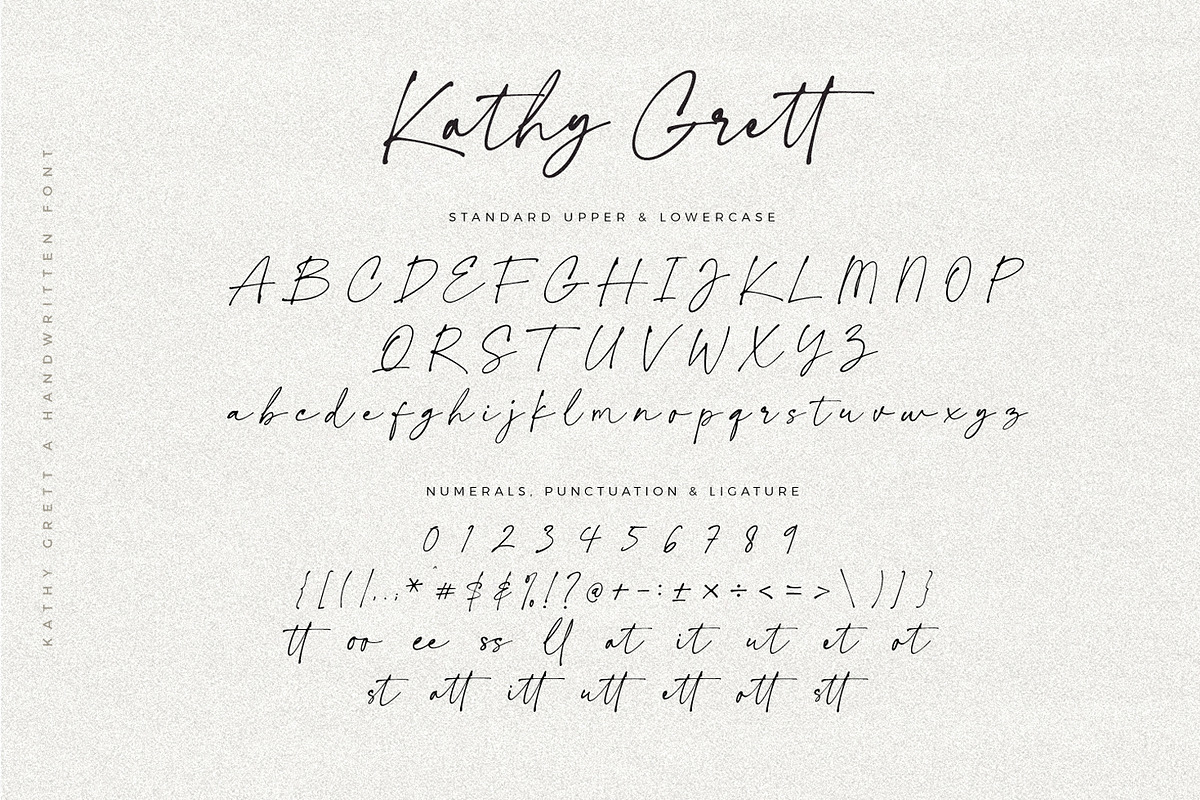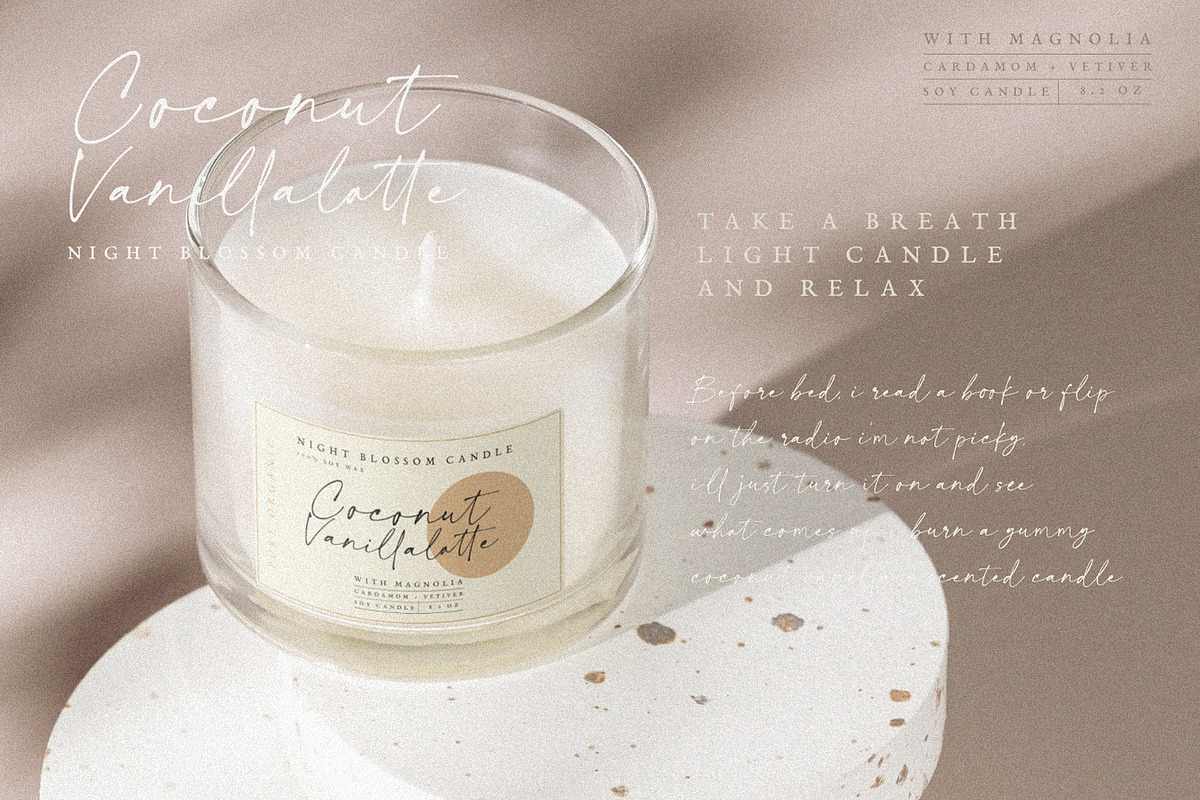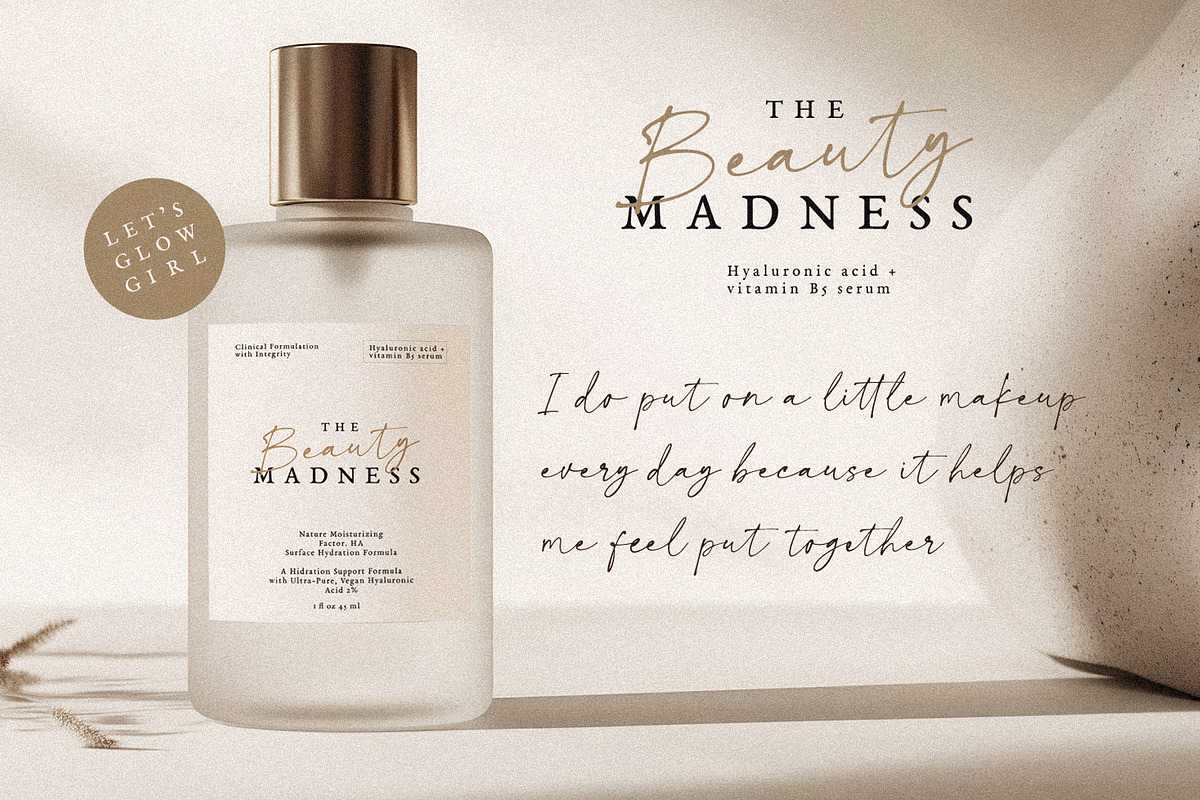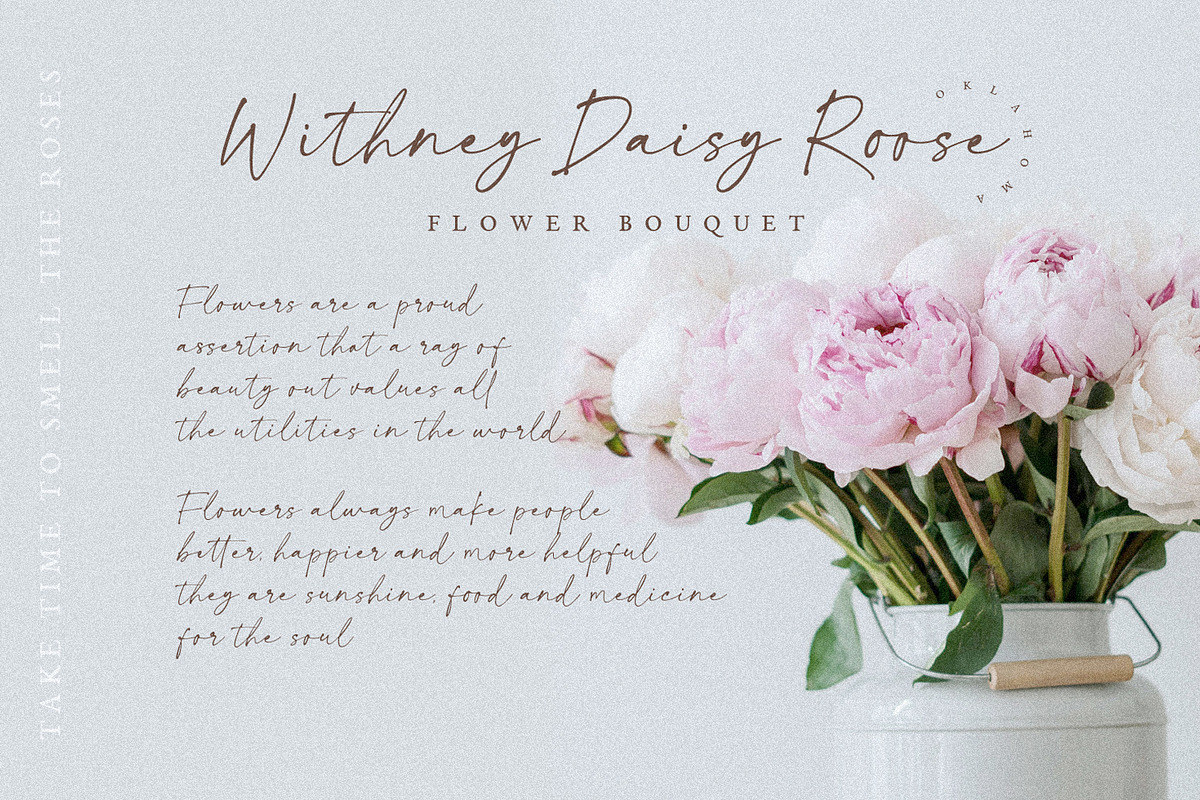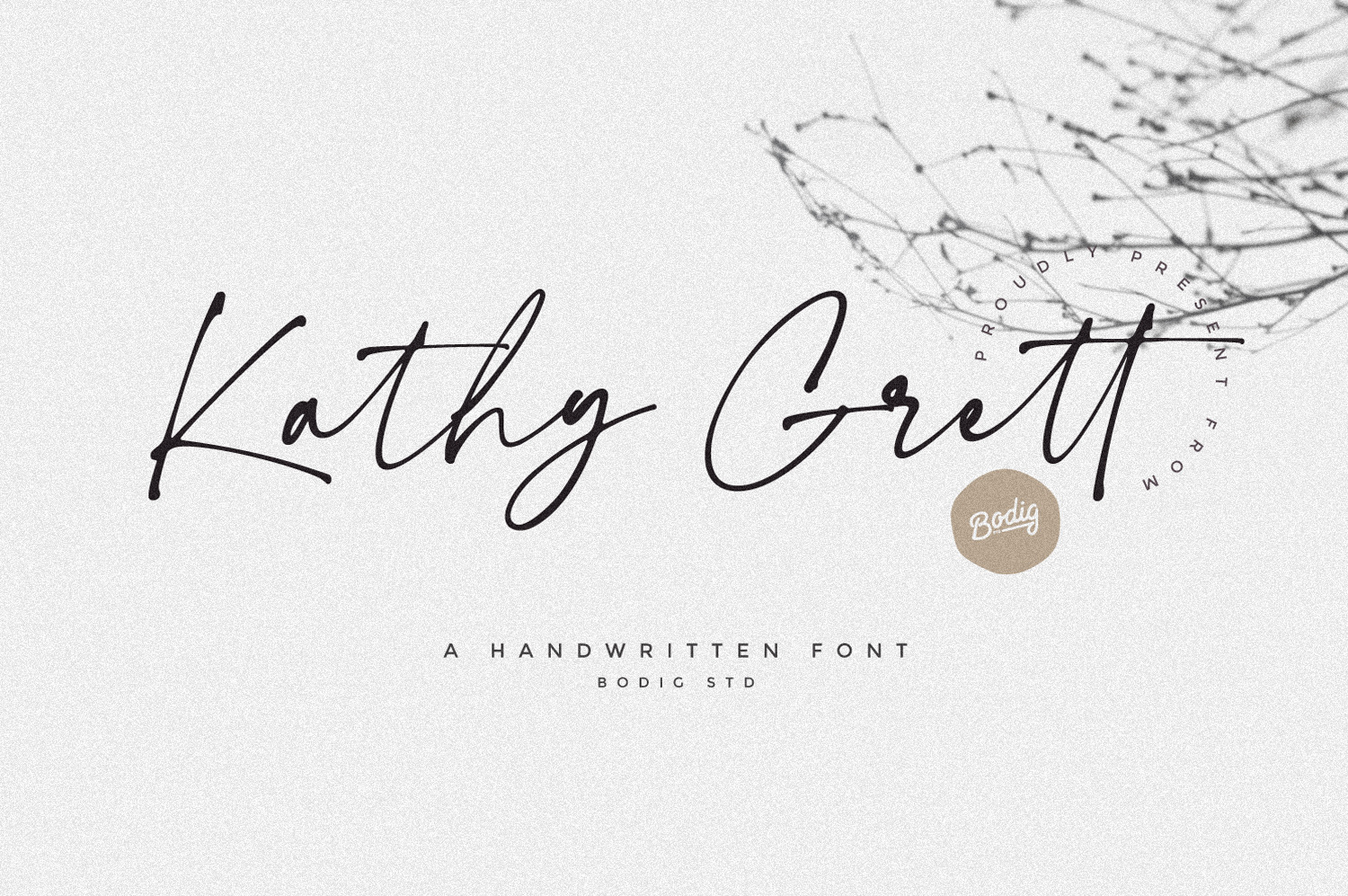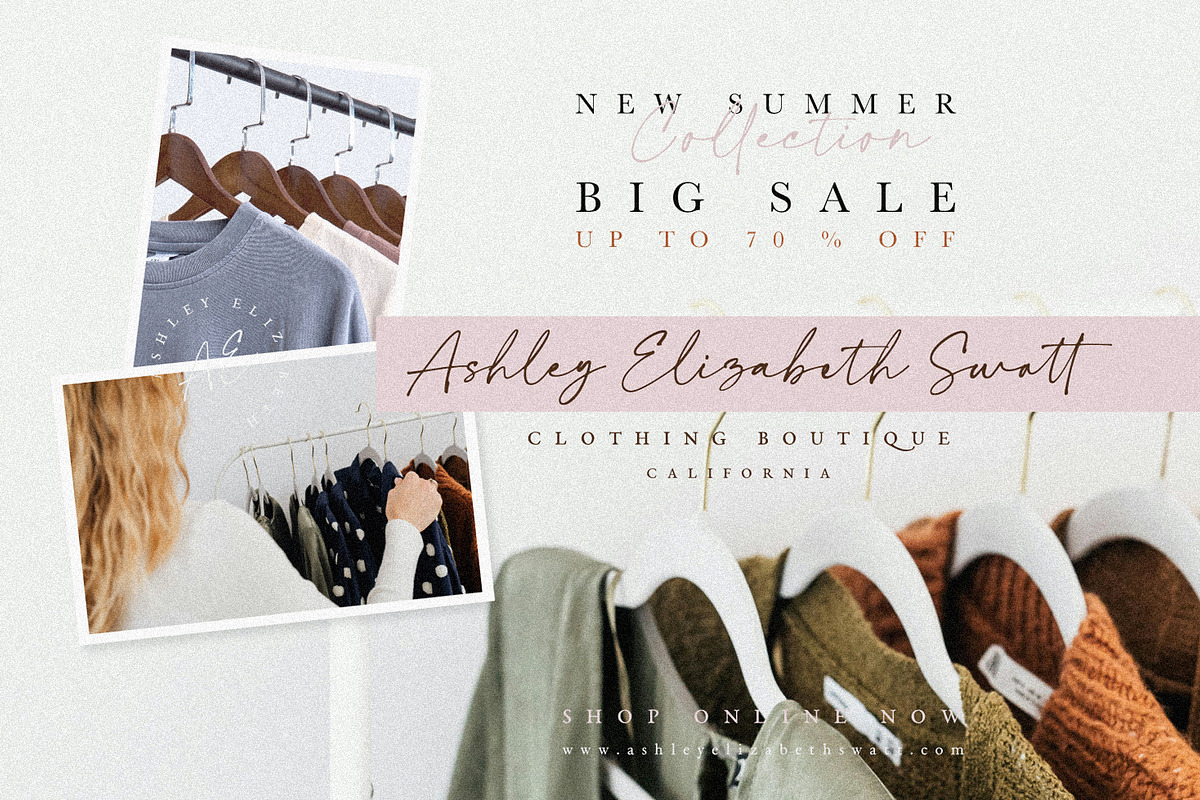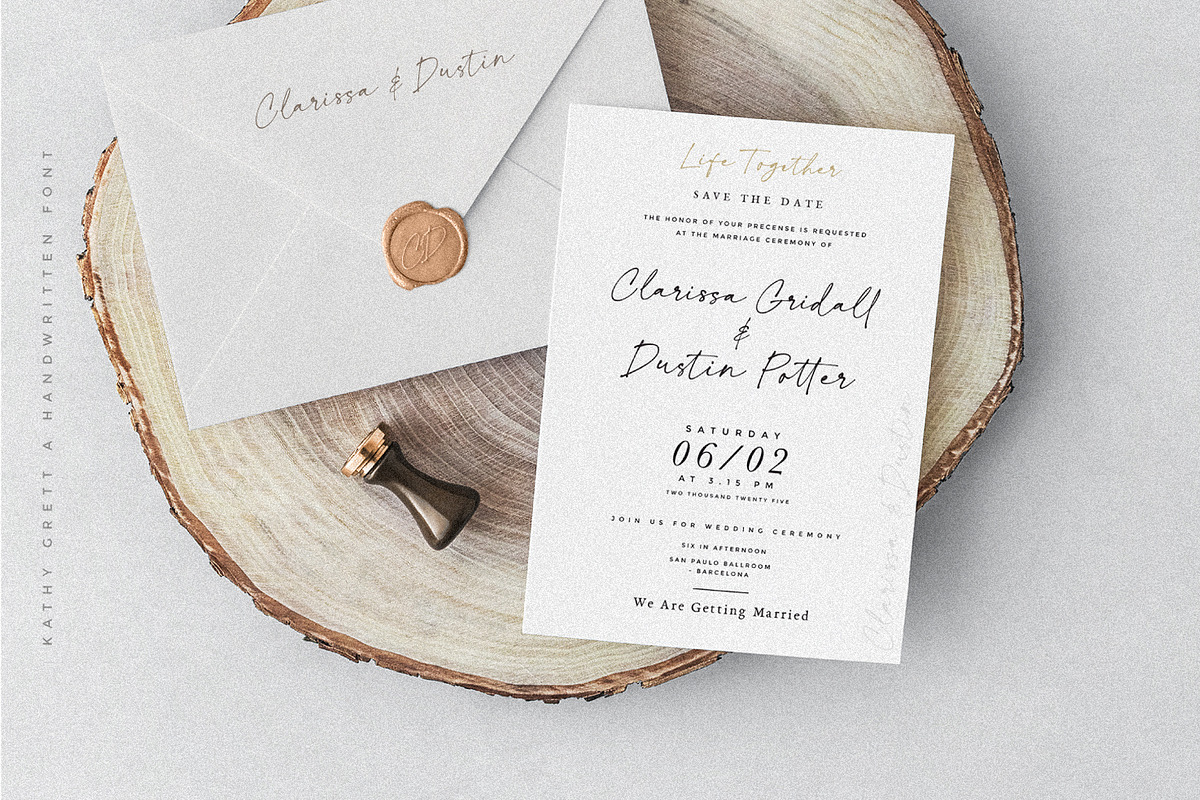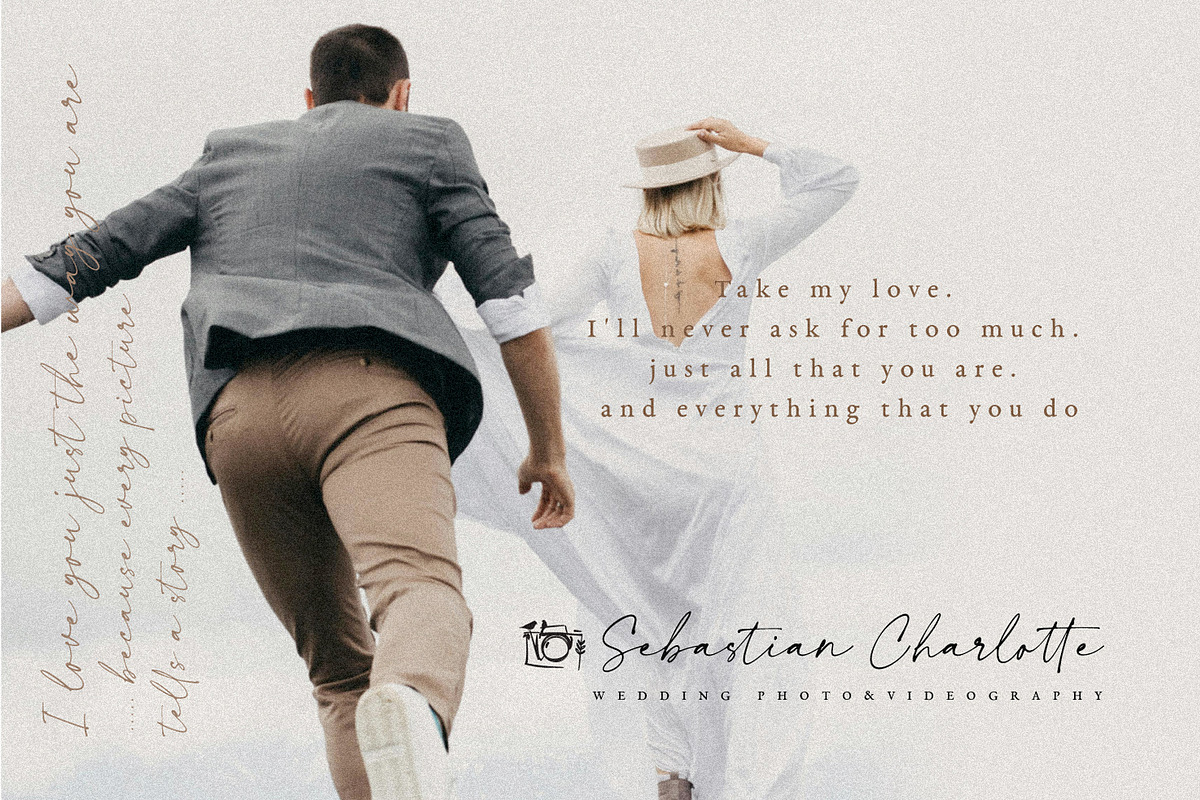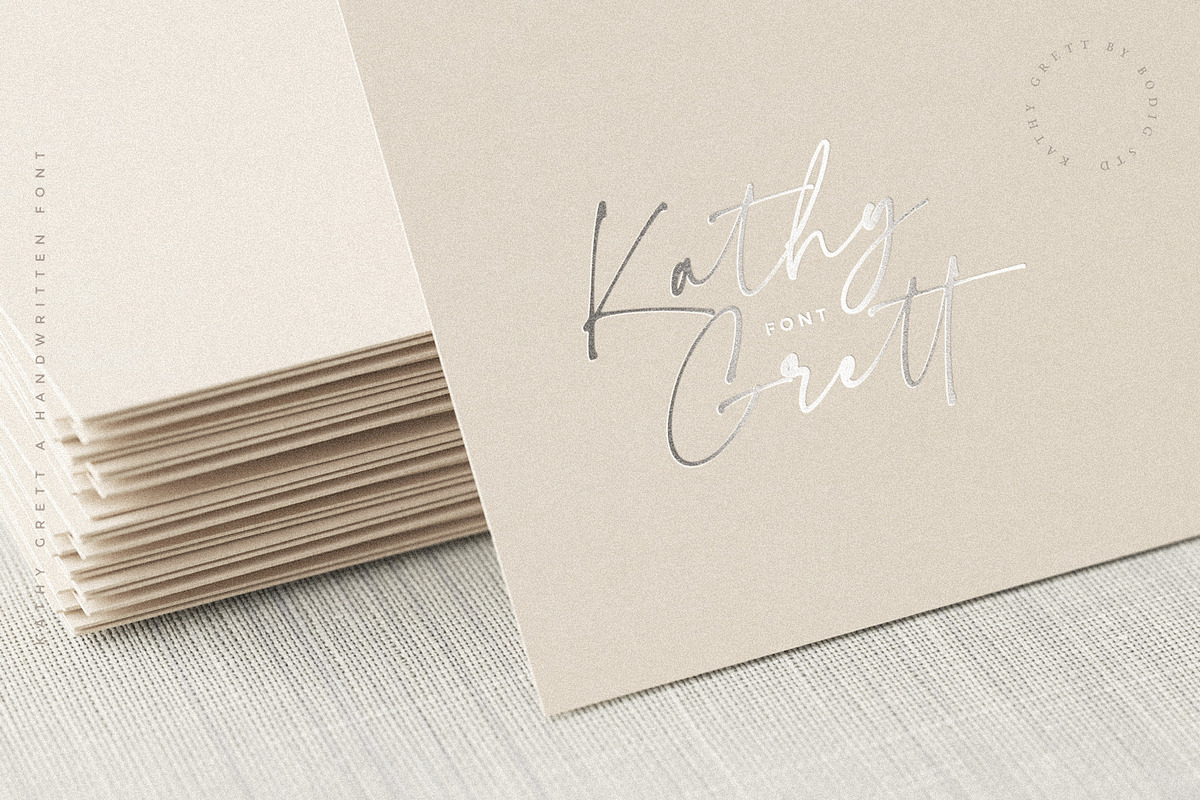
Kathy Grett Font
Kathy Grett is an organic handwritten script font style. this font that versatility makes it suitable for a range of design applications from invitations to sophisticated branding materials, is suitable for signature logos, wedding invitations card, product packaging, quotes, and other needs. This font is modern simple and still authentic.